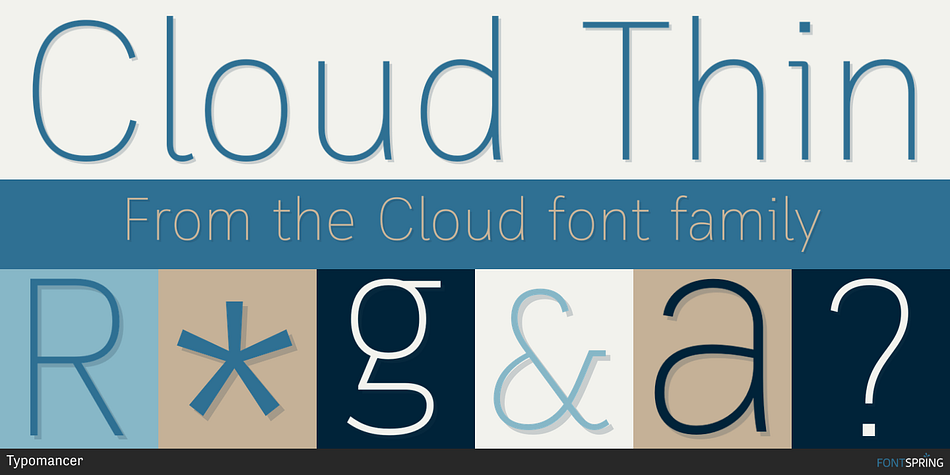
Cloud Thin
Cloud is a sans serif font family. This typeface has ten styles and was published by Typomancer.
Cloud, a humanist sans serif typeface with a bit of grotesque structure. Designed for all purposes.